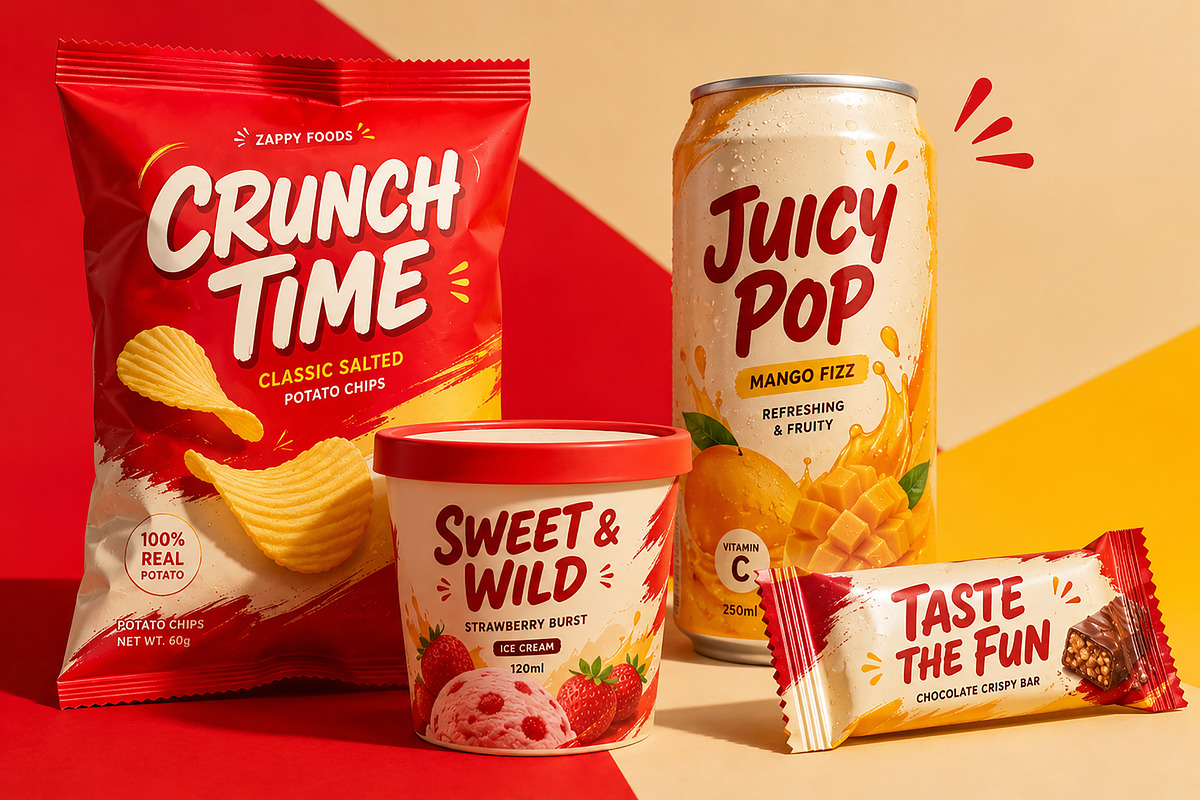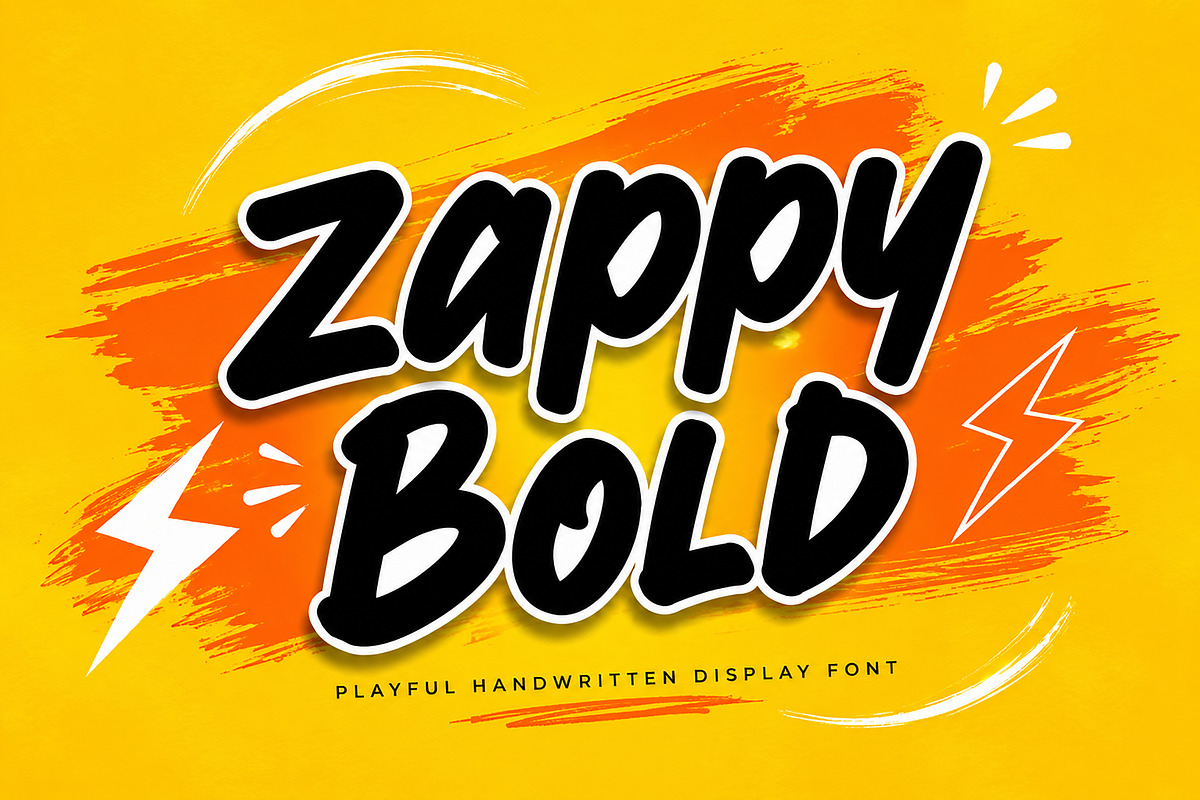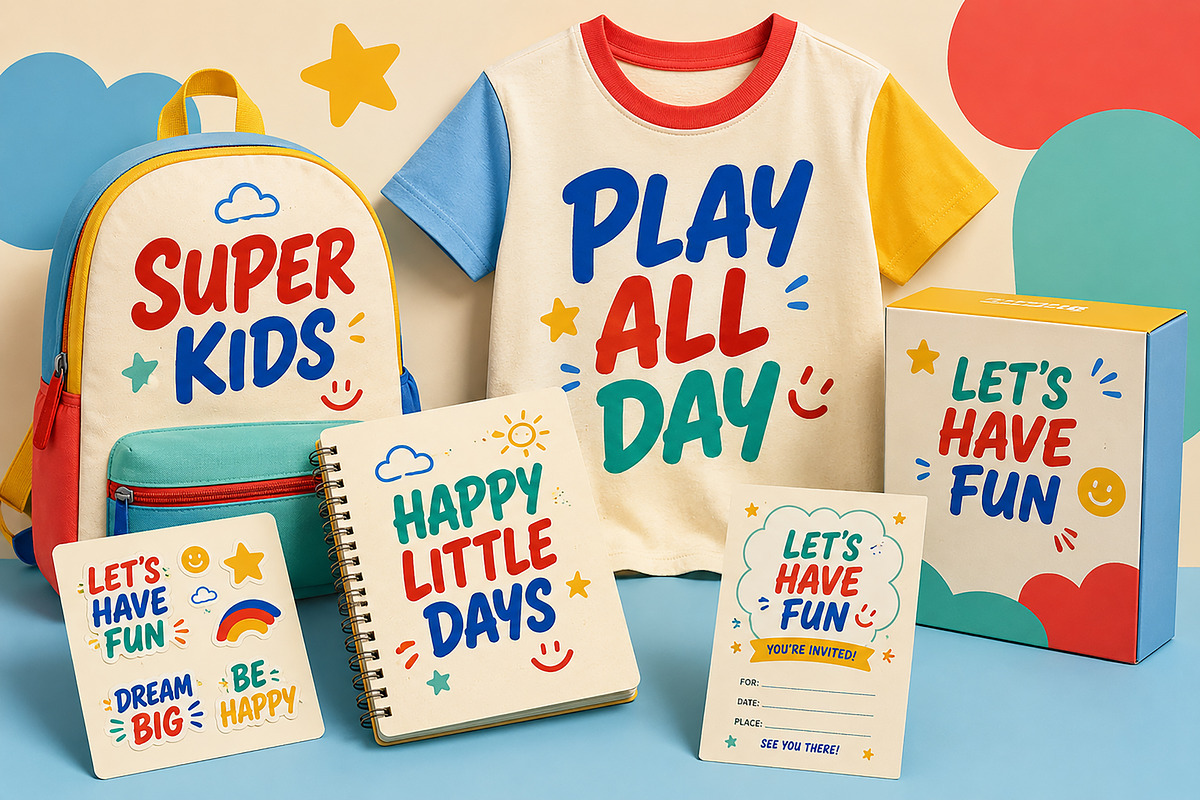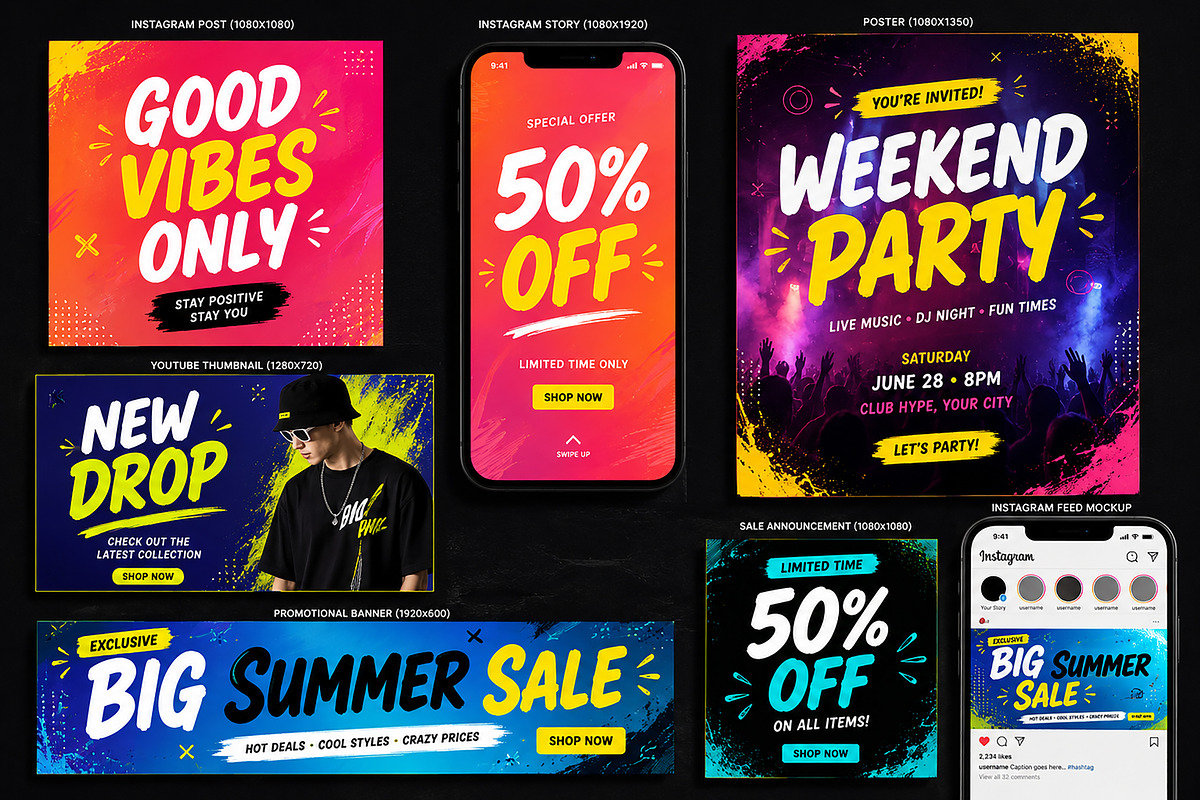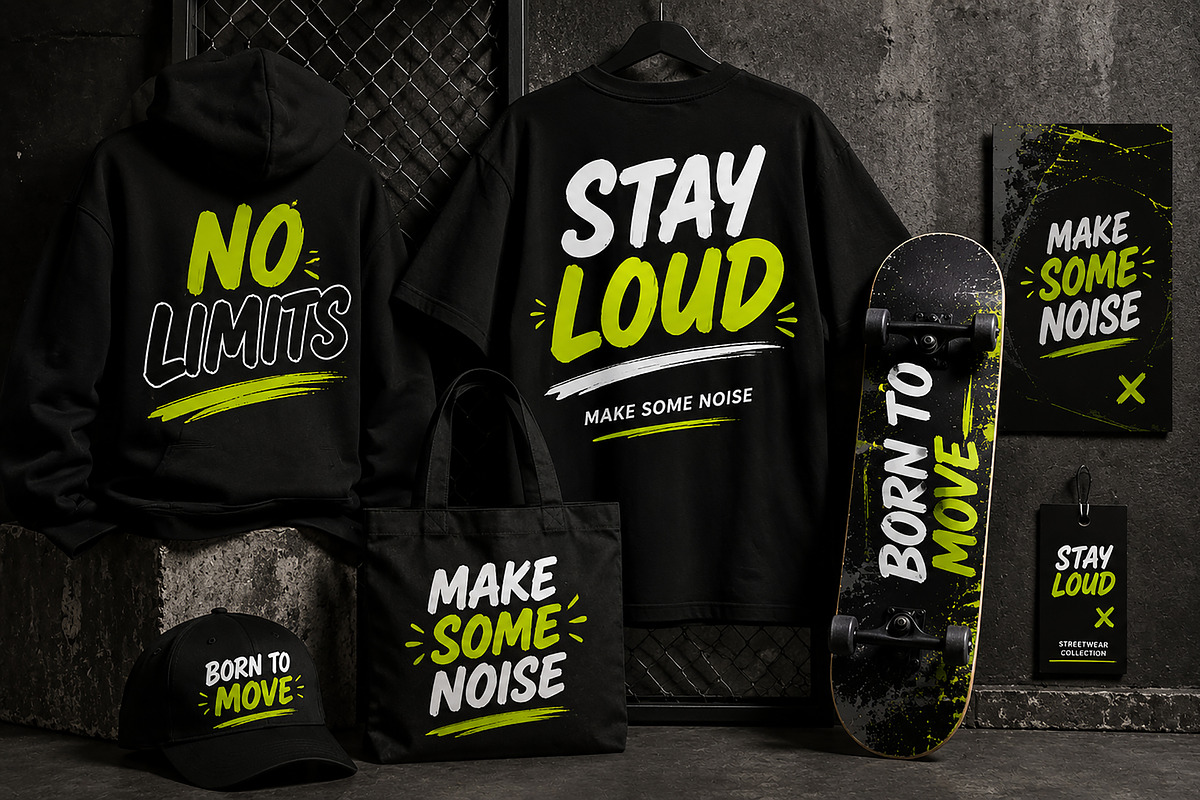
Zappy Bold
Zappy Bold is a fun, energetic handwritten display font designed to make your headlines stand out. With its bold brush-inspired strokes and playful personality, it's perfect for branding, packaging, social media graphics, posters, apparel, children's products, and eye-catching marketing materials.
Whether you're creating a snack brand, YouTube thumbnail, event poster, or trendy streetwear design, Zappy Bold delivers a confident, friendly, and memorable look that instantly grabs attention.
Its expressive letterforms make it ideal for projects that need a modern, casual, and energetic visual style.
Food & Beverage Packaging
Snack & Candy Branding
Kids Brands & Toy Packaging
T-shirt & Streetwear Designs
Logos & Brand Identity
Instagram Posts & Stories
YouTube Thumbnails
Posters & Event Promotions
Advertising Campaigns
Stickers
Greeting Cards
Creative Headlines
Bold Handwritten Display Font
Fun & Playful Style
Perfect for Large Headlines
High Readability
Great for Print & Digital Designs